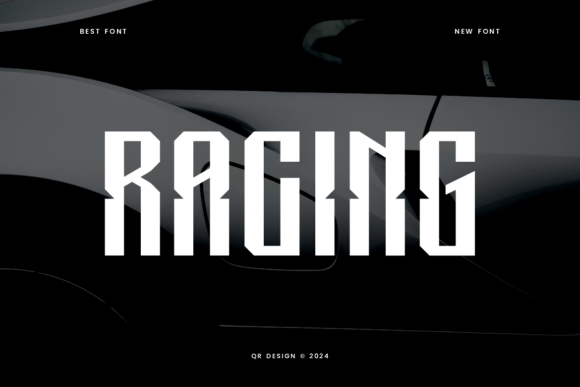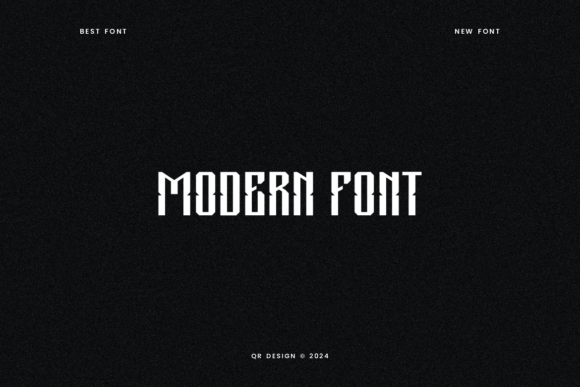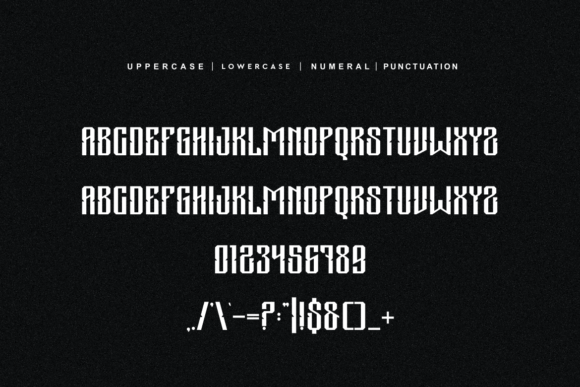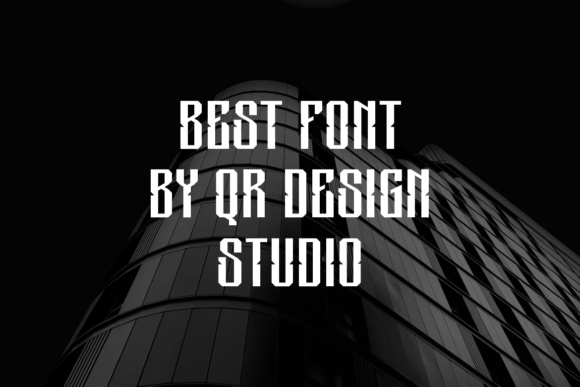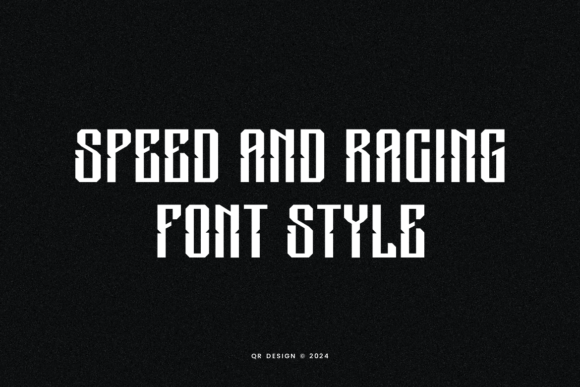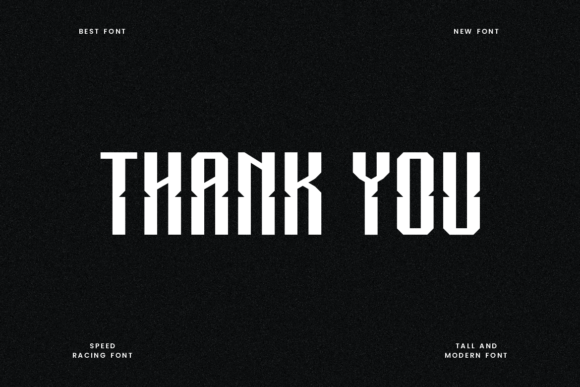
Introduction to Slomkez Font
Do you remember that moment when a single font changed the entire direction of your creative project? For designers, it’s not uncommon to find themselves in this situation, searching for that perfect font to elevate their work. It’s a moment of pure excitement and anticipation, knowing that the right font can make all the difference.
That’s exactly what happens when you discover the Slomkez Font. This unique decorative font is a game-changer for designers, offering a high level of customization and versatility. With its intricate details and stylish design, the Slomkez Font is sure to become a valuable addition to any design resource.
Whether you’re working on a free download project or a commercial design, the Slomkez Font is a must-have. Its transparent background and high-quality design make it perfect for a wide range of applications, from logos to infographics and beyond.
Key Features of Slomkez Font
- Unique, creative design perfect for a wide range of projects, from logos to branding materials.
- Features a bold, modern style that adds a touch of sophistication to any design, making it perfect for use in business and professional settings.
Honest Review: Slomkez Font
As a designer, I’m always on the lookout for high-quality design resources that can elevate my creative projects. Recently, I had the chance to work with the Slomkez Font, and I’m excited to share my honest review with you.
- The Slomkez Font offers a clean and modern design aesthetic that’s perfect for a variety of creative projects.
- The font is highly legible, even at small sizes, making it ideal for digital use.
- The transparent background option provides endless possibilities for creative experimentation.
- The Slomkez Font is limited to a single style, which may not be suitable for projects that require multiple font variations.
- The font may not be suitable for print use, as the design may not hold up to high-resolution printing.
Overall, I’m impressed with the Slomkez Font’s versatility and high-quality design. While it has some limitations, it’s an excellent resource for designers working on digital projects or looking for a modern, free font option.
Common Use Cases for Slomkez Font
Slomkez Font is ideal for use in a variety of creative projects, including business cards, brochures, and social media graphics. Its high-quality design and transparent background make it a popular choice among designers and artists.